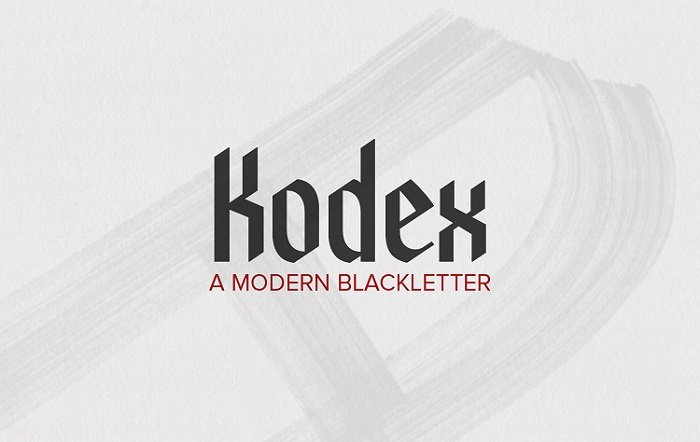
Kodex Font
It’s been a long time for me to introduce you to a blackletter font, and today is a good place to do it. You will enjoy it and give it to your fonts collection. A versatile complimentary font. Introducing Kodex Font! Kodex designed and shared by Manu Script. Kodex Font is a combination the boundaries between old and new, tradition and contemporary, that is an art form combines calligraphy, typography, and graffiti…You can use it as a logo, badge, insignia, packaging, headline, poster, t-shirt/apparel, greeting card, and wedding invitation.